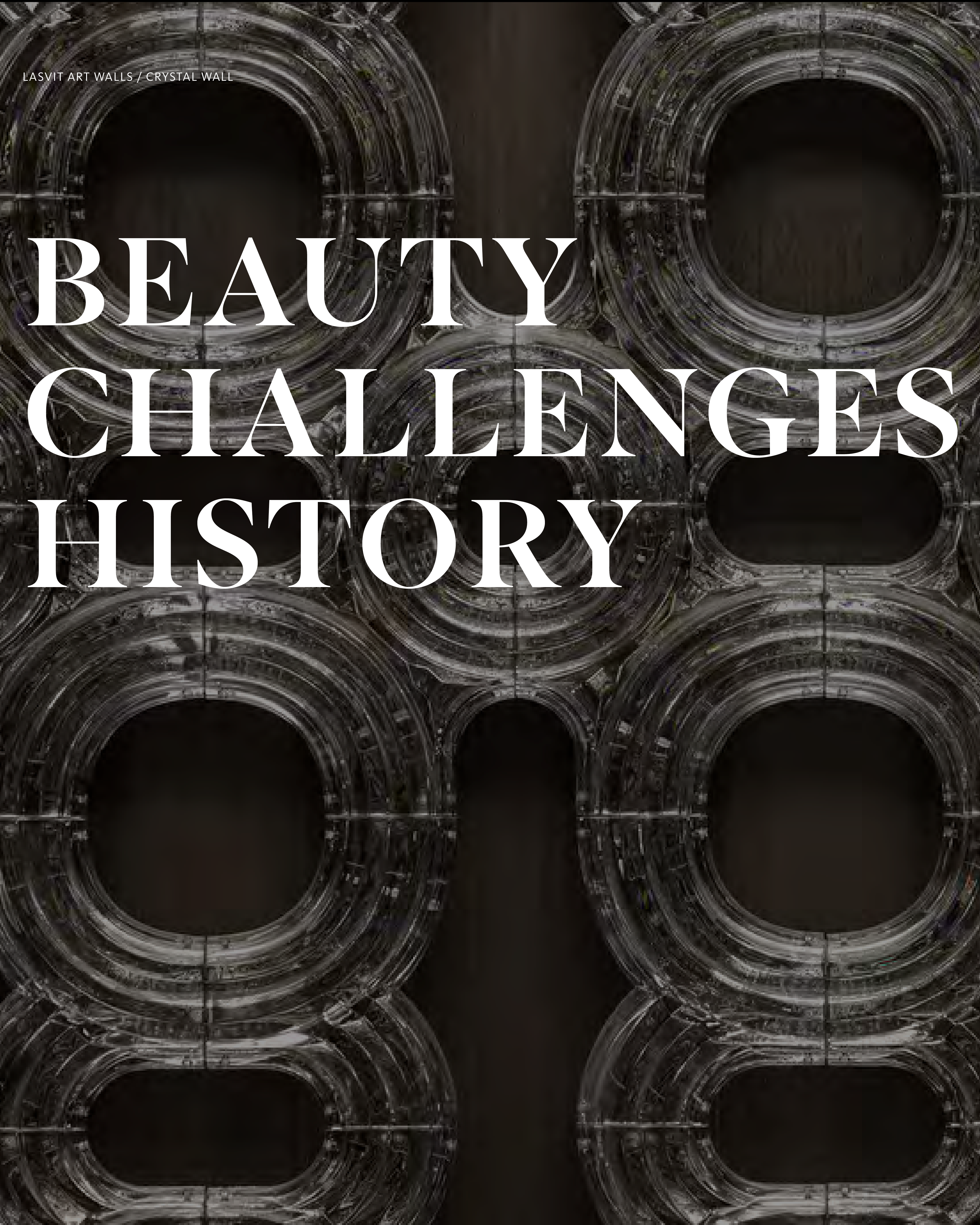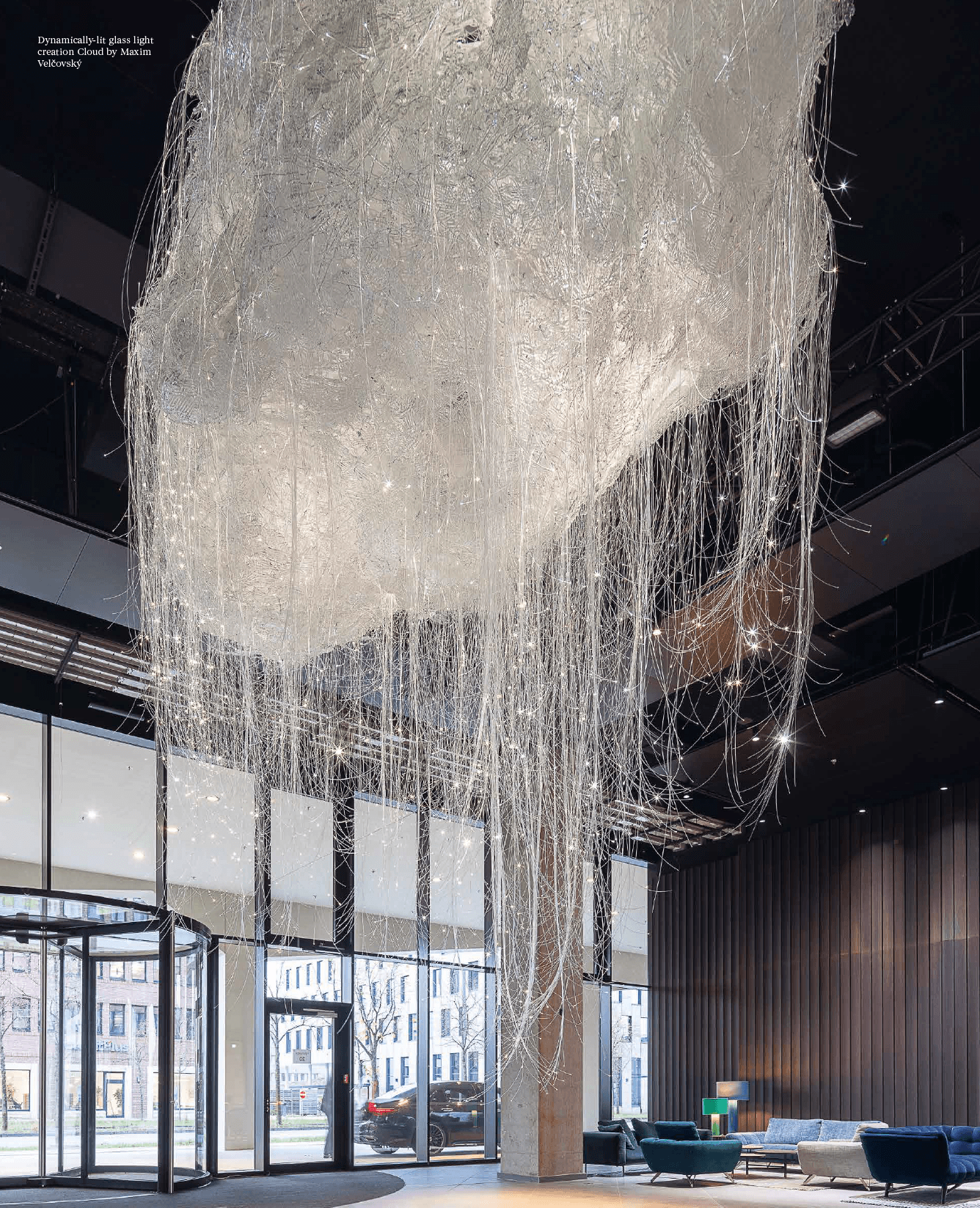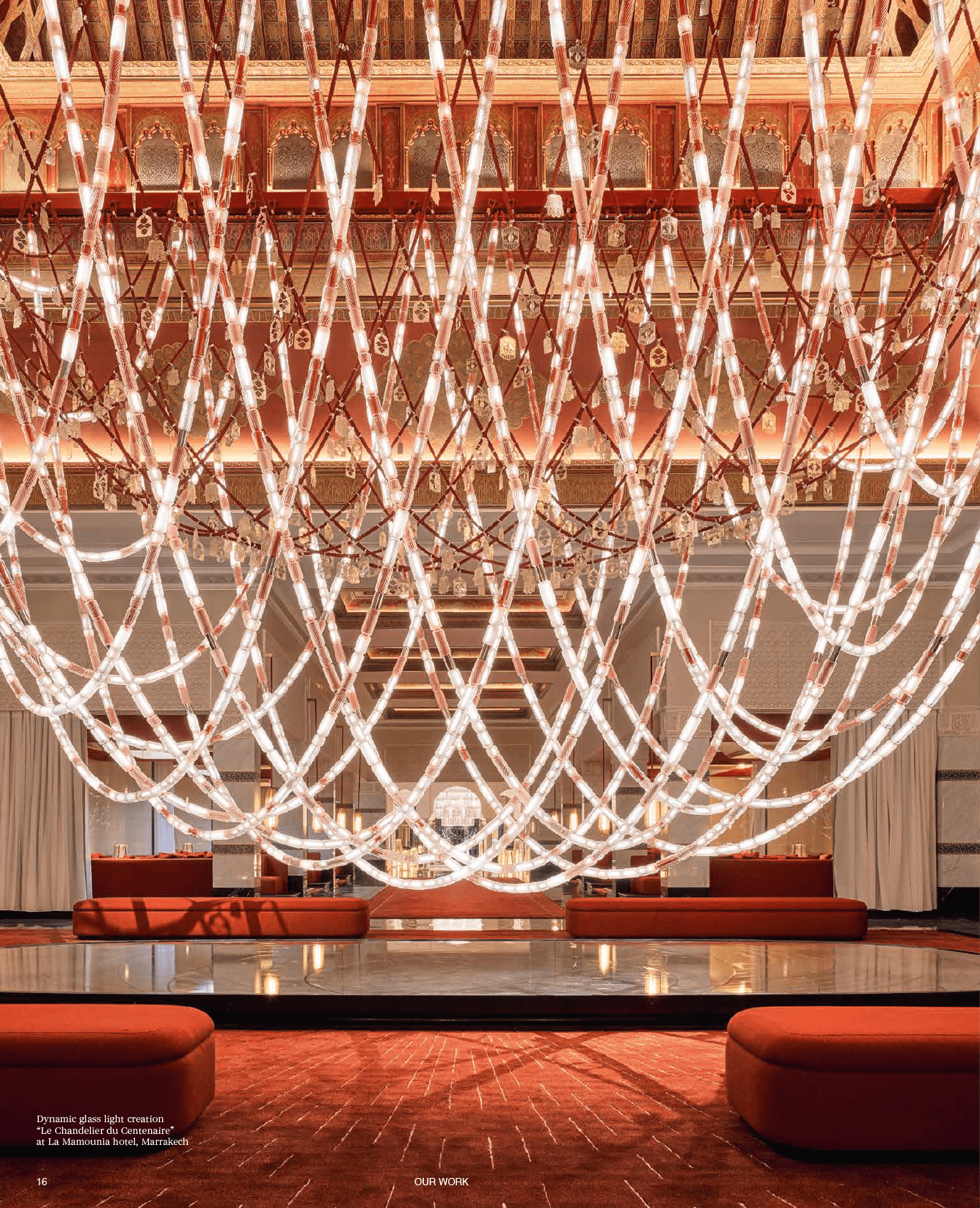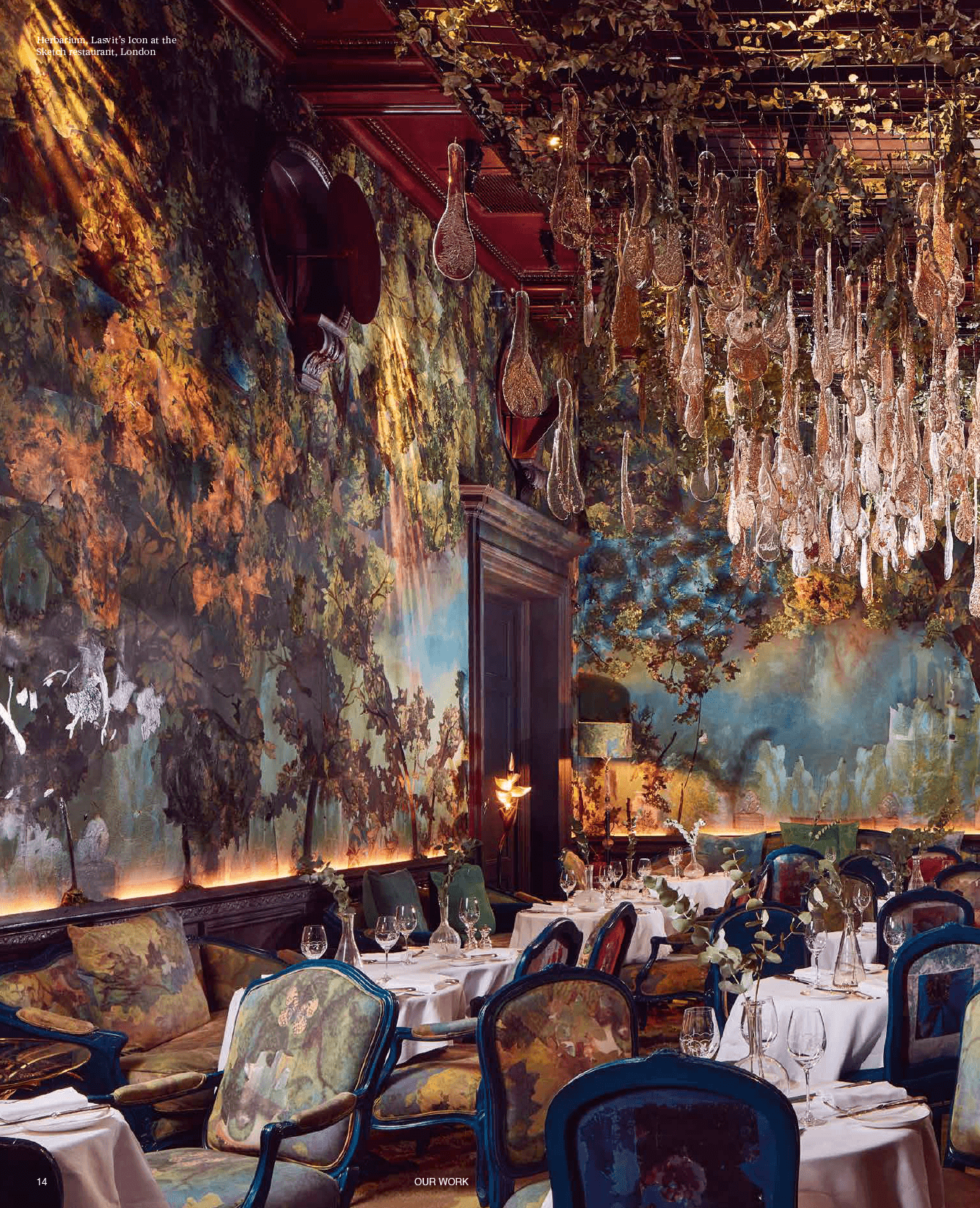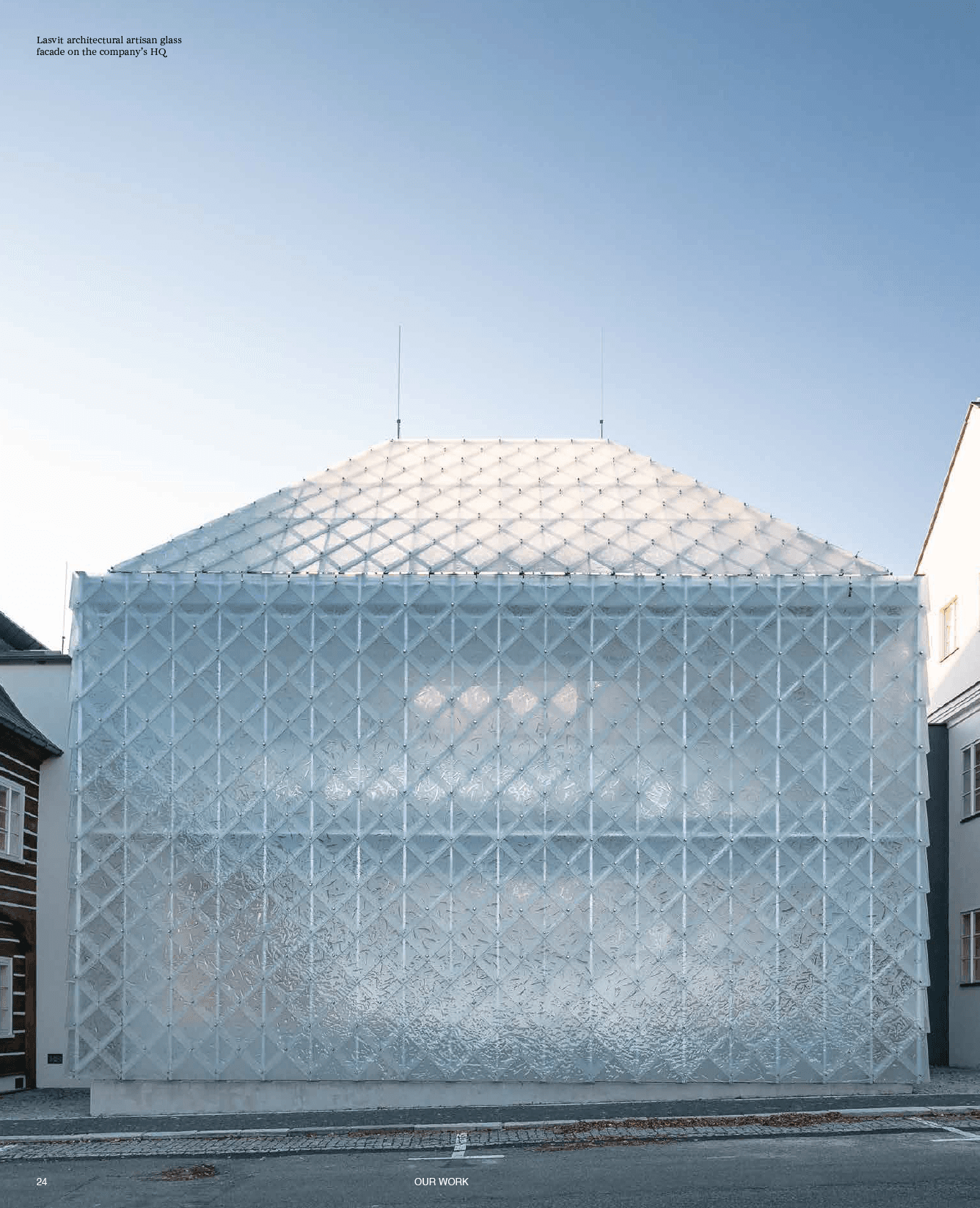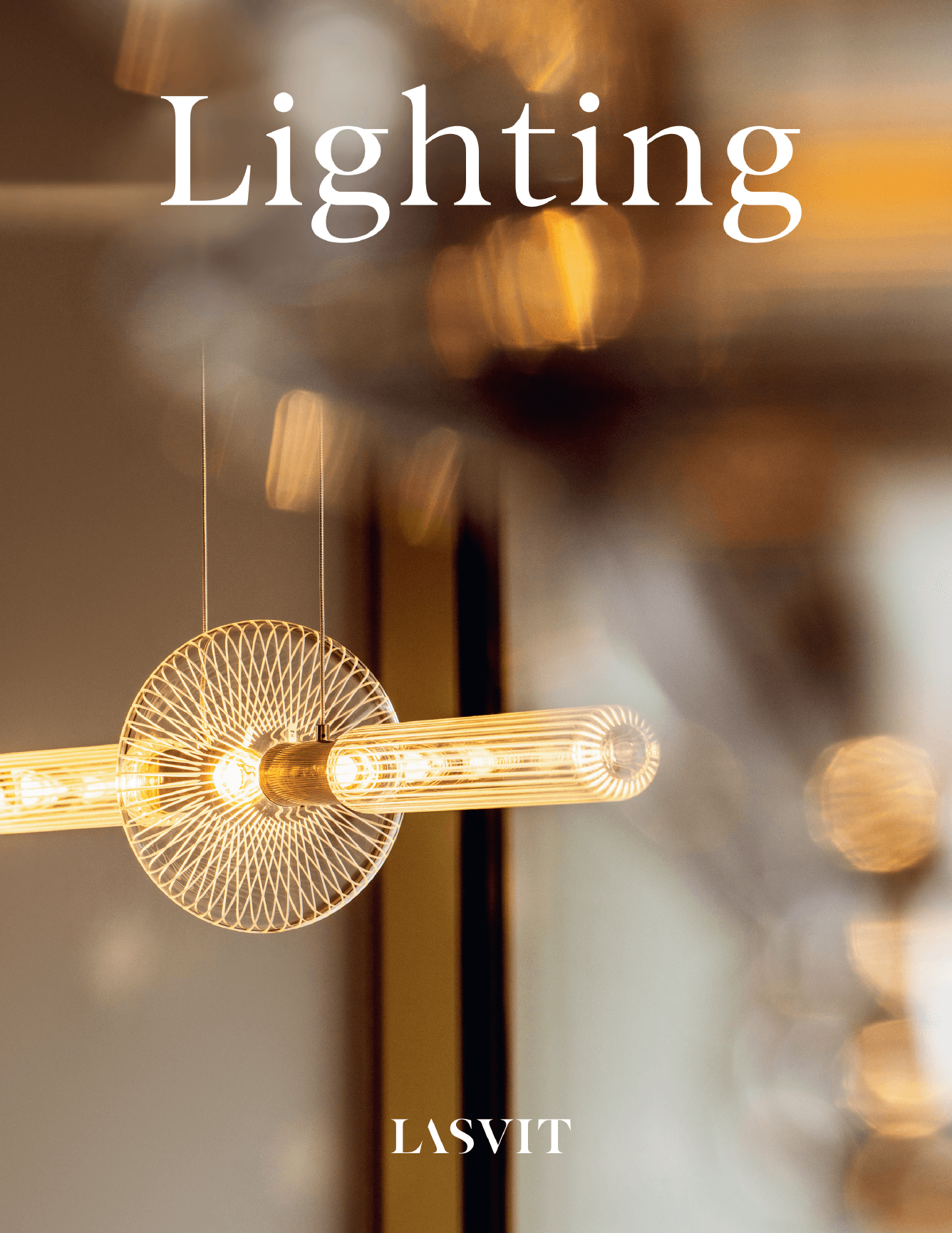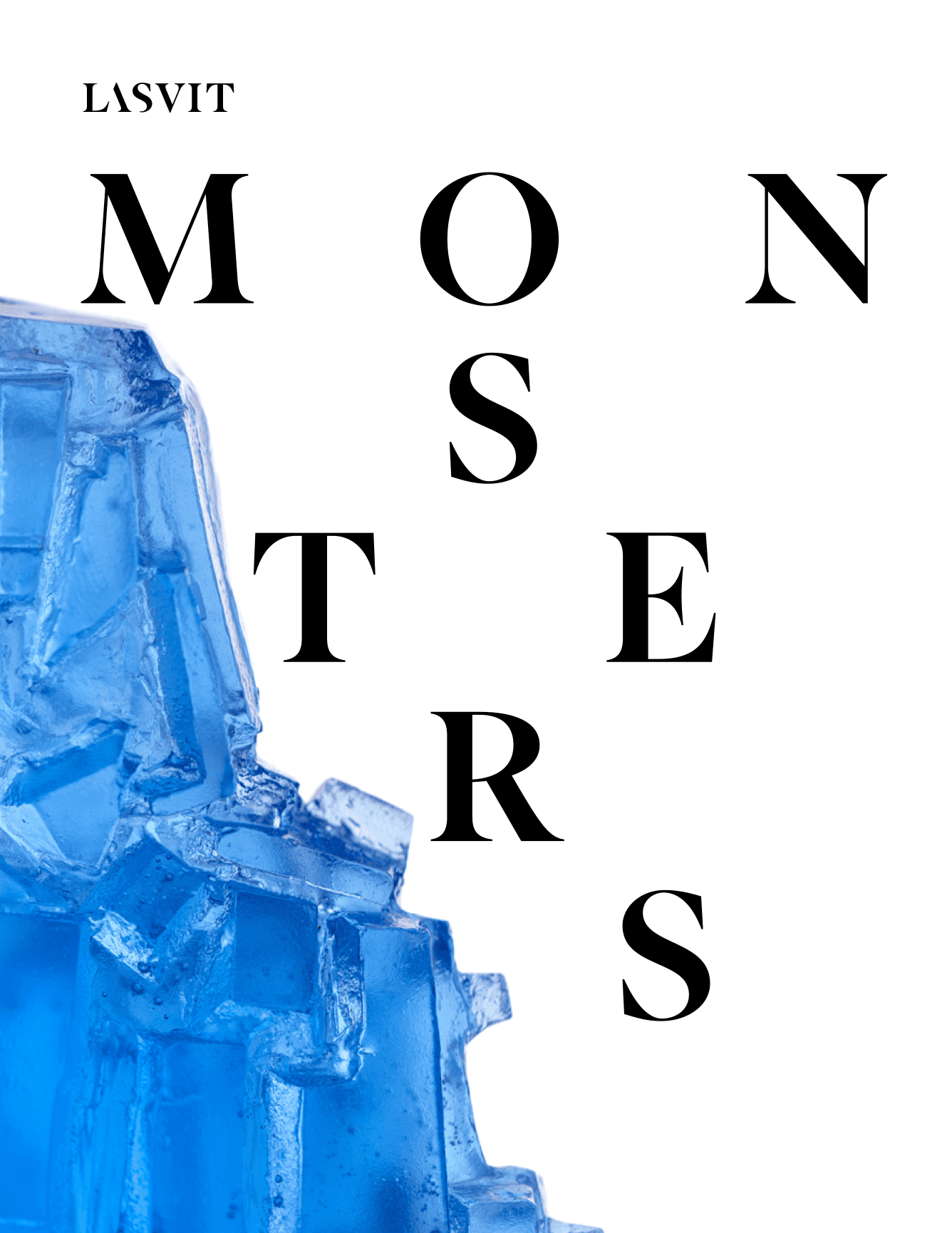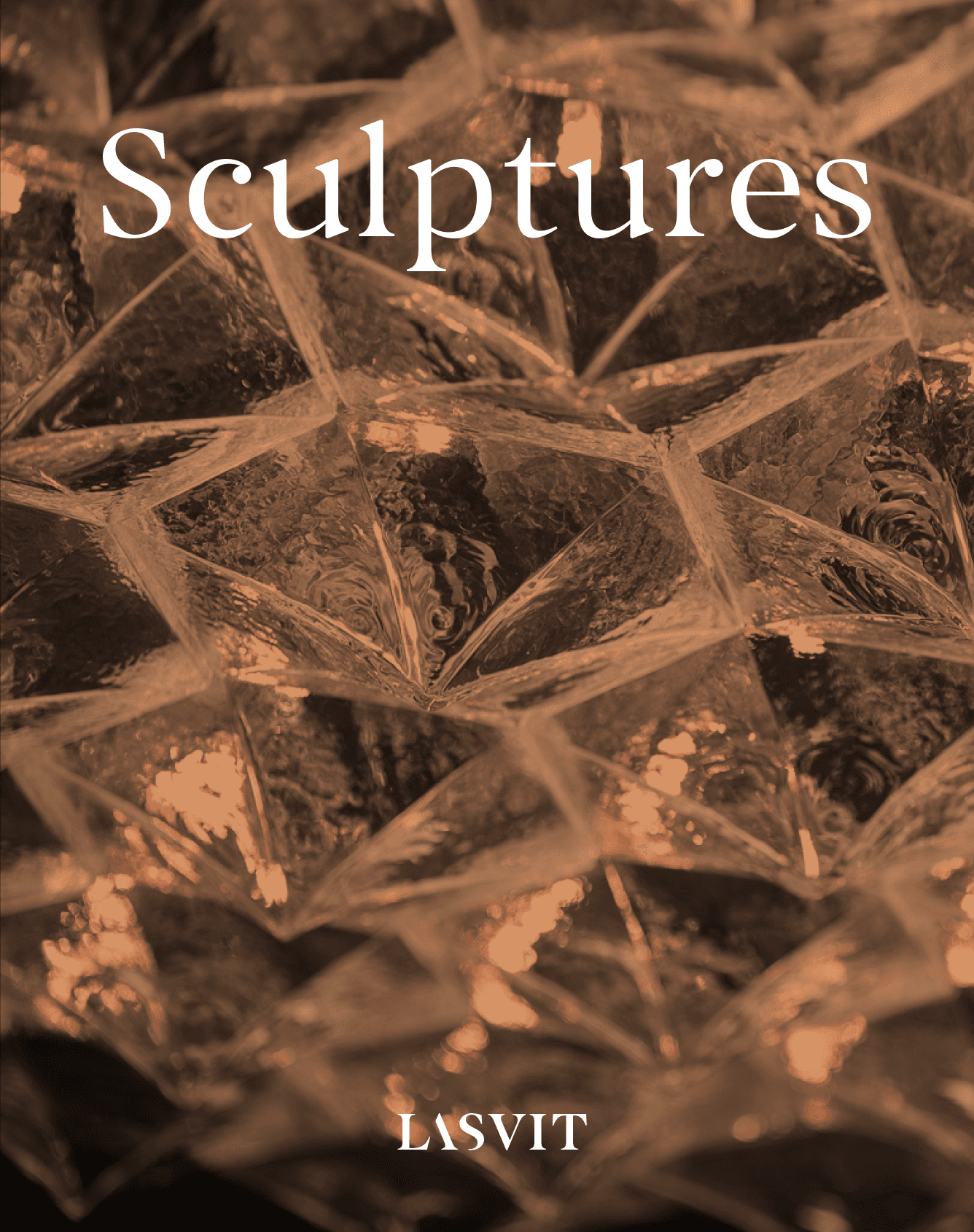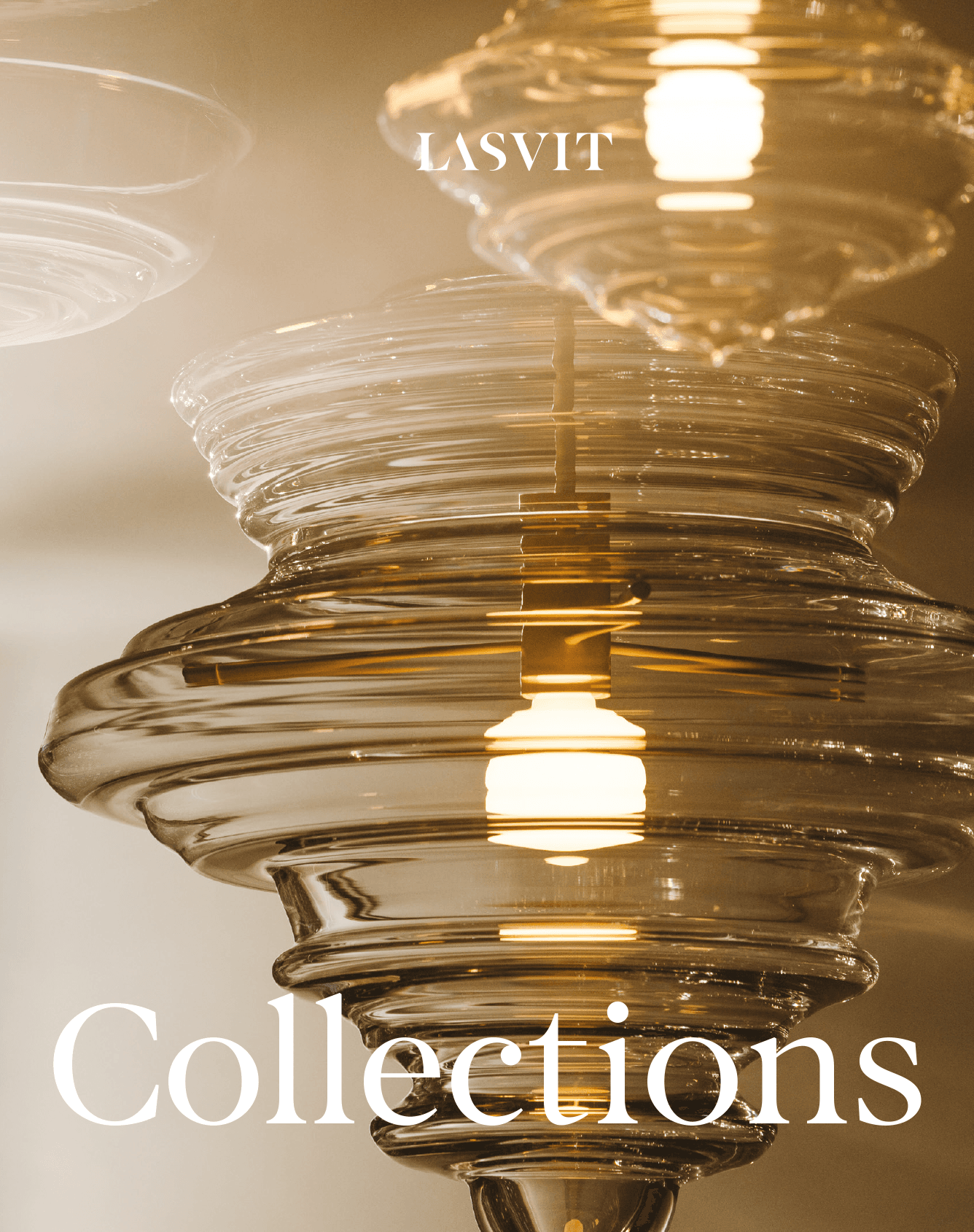
Lasvit
Lasvit is a Bohemian design and artisan house bringing thousand years of glassmaking craftsmanship into the future by making sublime glass and light creations that are loved globally.
Based on the logotype, the Lasvit serif typeface was developed as a family comprising three weights for display use and an additional three styles with reduced contrast for text settings. Particularly in all-capital compositions, it embodies a sense of elegance and reflects the brand’s values.